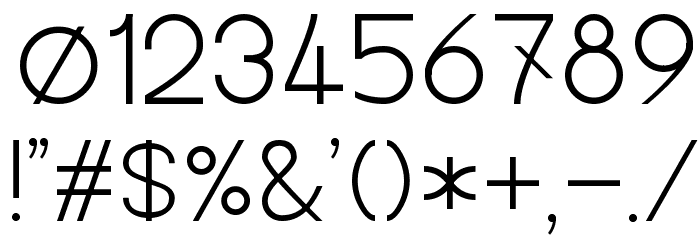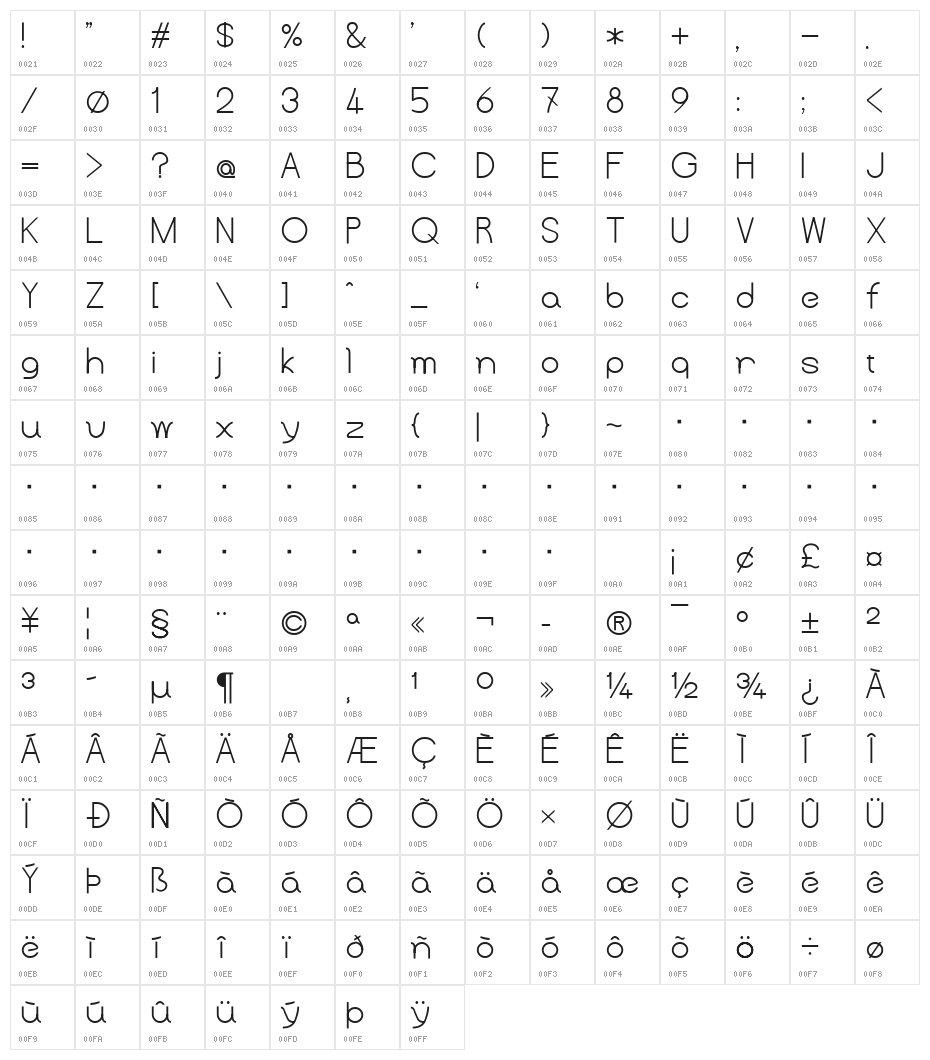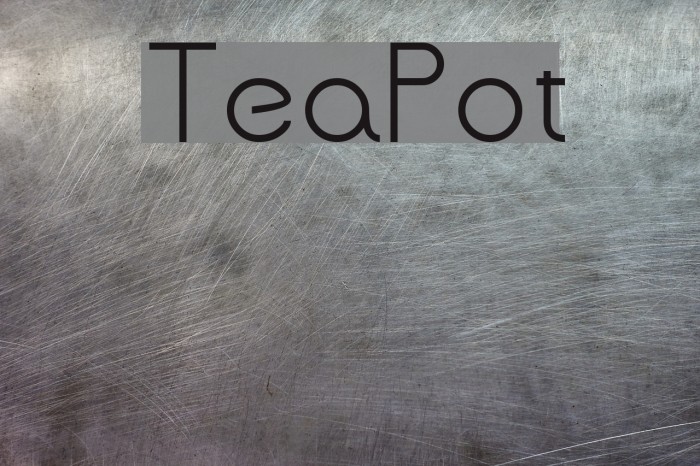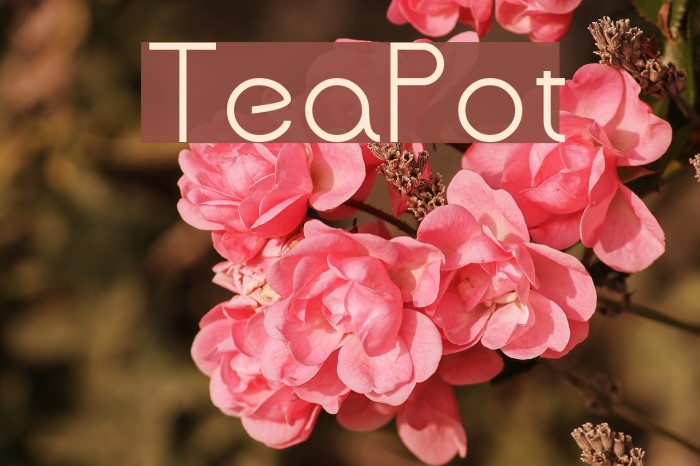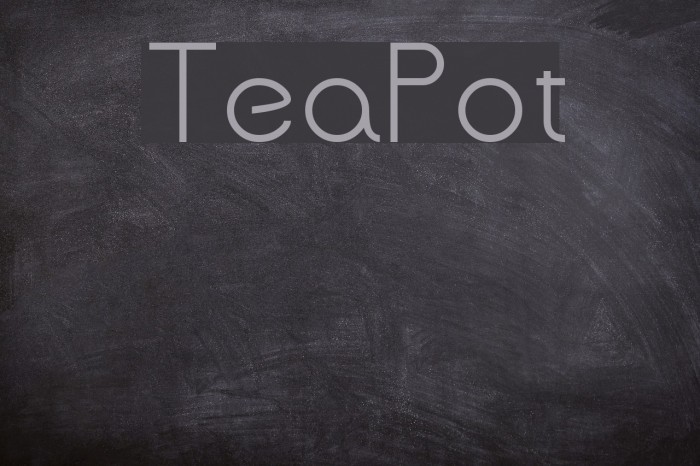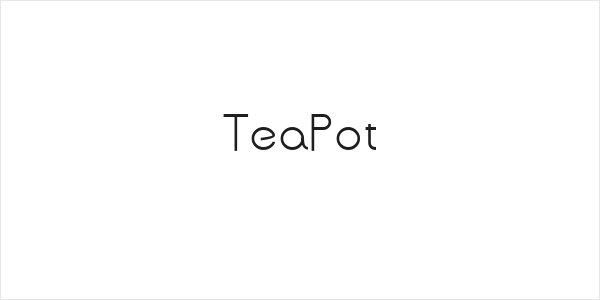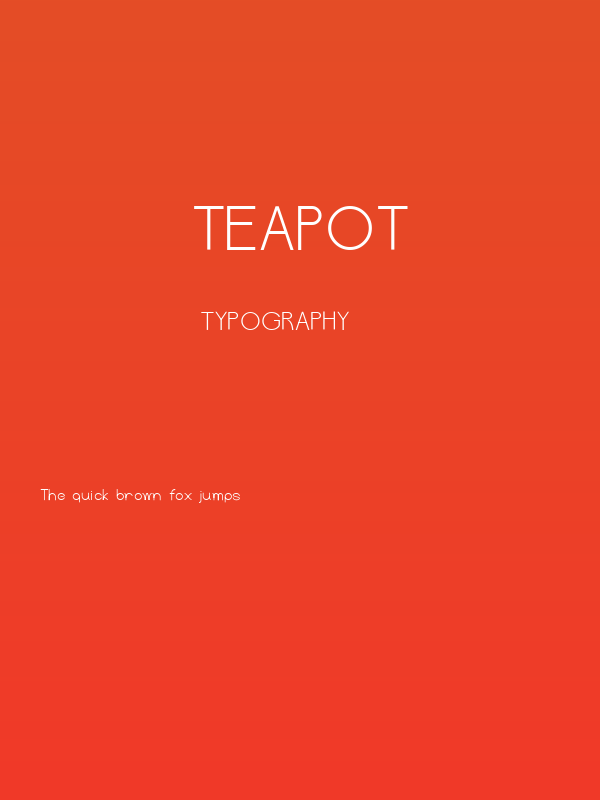
TeaPot Font
TeaPot Description
This font features a clean and modern design with a geometric structure. The characters are uniform and balanced, providing a sense of harmony and clarity. The uppercase letters are bold and assertive, while the lowercase letters maintain a consistent flow with rounded edges. The numerals are distinct and easily readable, complementing the overall aesthetic. The special characters are well-integrated, maintaining the font's sleek and contemporary style. This font is versatile, making it suitable for a wide range of applications.
Use CaseHeadlines, Body text, Logos
Proposed ProjectsIdeal for branding, advertising, digital interfaces, and editorial design.